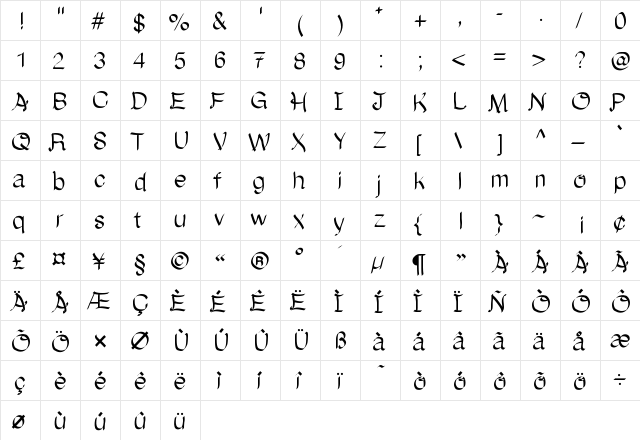
OnceUponATime Medium
Design Context for OnceUponATime Typeface
OnceUponATime is a composed and adaptable typeface that performs quietly and consistently across a wide range of design contexts.
Pro Tip: Use OnceUponATime in both headline and body roles to test its range before committing to a single application.